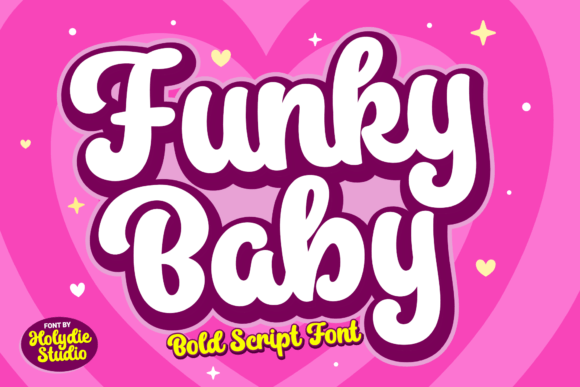
Are you looking for the perfect font to take your designs to the next level? Look no further than Funky Baby Font, the ultimate script font for anyone seeking to create eye-catching designs that stand out from the crowd.
Created by Holydie Studio, Funky Baby is a vintage and bold handwritten font that's perfect for everything from posters and flyers to logos and business cards. With its beautiful and well-balanced characters, Funky Baby is sure to capture the attention of anyone who sees it.
But that's not all - Funky Baby is also PUA encoded, which means that you can easily access all glyphs and swashes, making it incredibly versatile and easy to use. Whether you're a professional graphic designer or just getting started, Funky Baby is the perfect font for all of your creative projects.
And if you're looking for the best fonts for script tattoos, Funky Baby is definitely the font for you. Its ravishing style and vintage charm are sure to make your script tattoos stand out and look amazing.